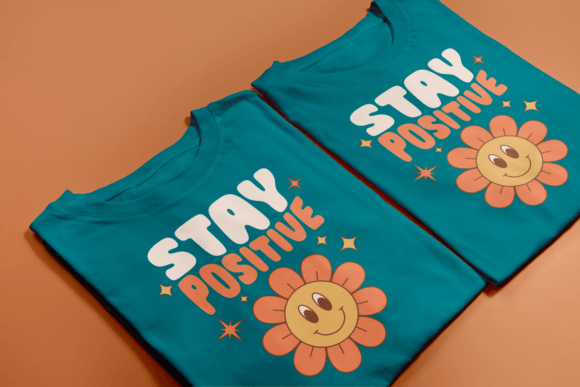
Introduction to Mood Vibes Font
Have you ever been working on a creative project, and suddenly, you stumble upon the perfect font that elevates your entire design? That’s exactly what happened when we discovered the Mood Vibes Font – a charming retro-style display font that instantly brightens up any design.
With its fun and cheerful vibe, Mood Vibes Font is the perfect addition to any designer’s library. Whether you’re working on eye-catching posters, kids’ t-shirts, or even signage, this high-quality font is sure to make your creations stand out. And the best part? It’s free to download, making it a valuable resource for designers of all levels.
Key Features of Mood Vibes Font
- High-quality design resource suitable for creative projects, offering a unique and stylish aesthetic.
- Perfect for designers looking for a modern and trendy font to elevate their creative project, with a range of moods and emotions to choose from.
- Designed with a focus on legibility and readability, ensuring that the font remains clear and easy to understand, even at smaller sizes.
Honest Review: Mood Vibes Font
As a designer, I’m always on the lookout for high-quality design resources to elevate my creative projects. The Mood Vibes Font is one such resource that caught my attention, and I’m excited to share my honest review with you.
- Unique and expressive characters: The Mood Vibes Font has a distinct personality that sets it apart from other sans-serif fonts.
- High-quality design: The font’s design is crisp and clear, with a transparent background that makes it easy to use on any background.
- Limited language support: The font only supports a limited range of languages, which may be a concern for designers working on projects that require multiple languages.
- No bold or italic variations: While the font has a clear and expressive character, it would be nice to have bold and italic variations to add more depth and versatility.
Overall, I think the Mood Vibes Font is a great addition to any designer’s toolkit. Its unique personality and high-quality design make it a great choice for creative projects, and the free download is a definite bonus. However, the limitations of language support and lack of bold and italic variations may be a concern for some designers.
To get the most out of the Mood Vibes Font, use it on a transparent background to create a subtle and stylish design. You can also combine it with other design elements, such as graphics and illustrations, to create a unique and eye-catching visual identity.
The Mood Vibes Font is perfect for creating social media graphics, blog posts, and other online content. It’s also great for designing business cards, flyers, and other print materials. With its high quality and unique style, the Mood Vibes Font is a versatile design resource that can be used in a variety of creative projects.